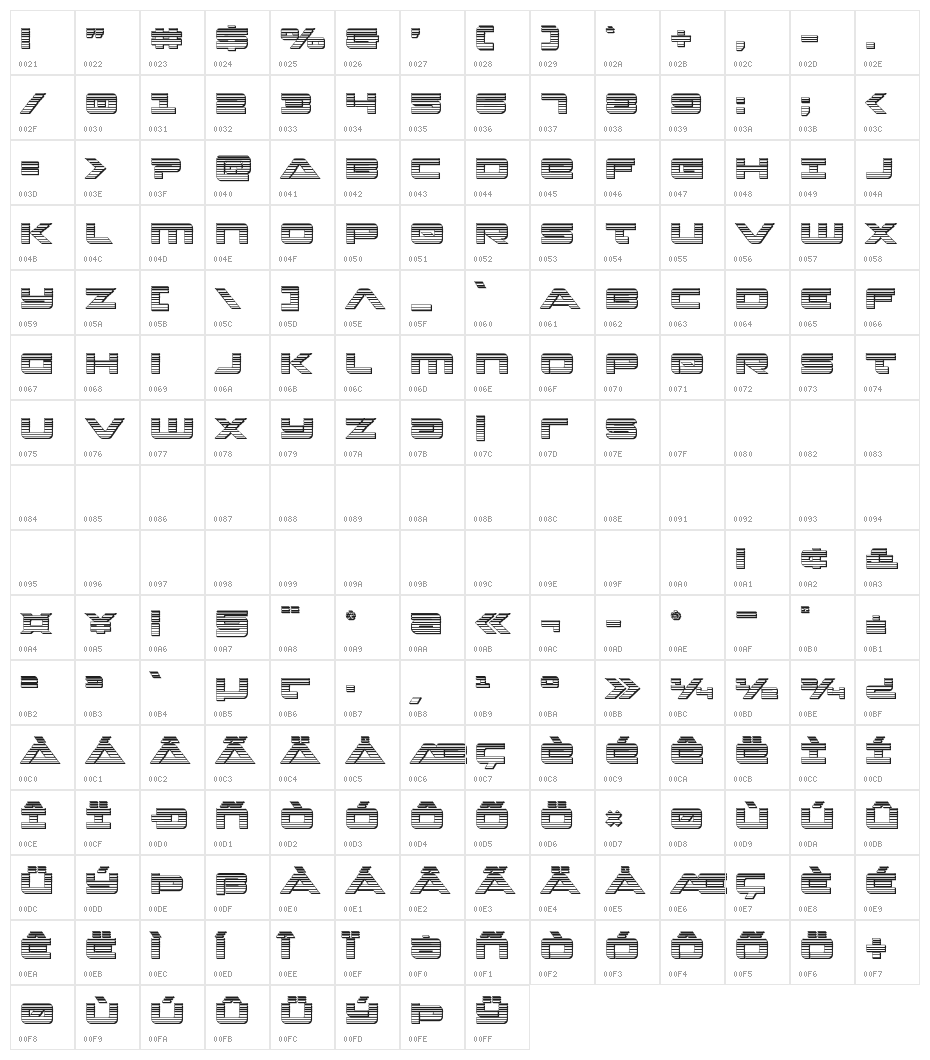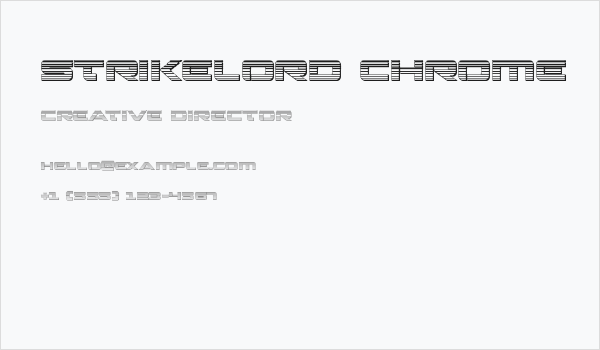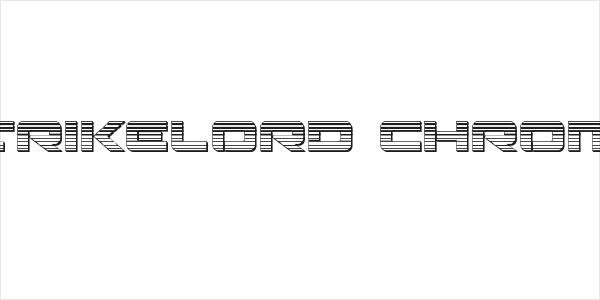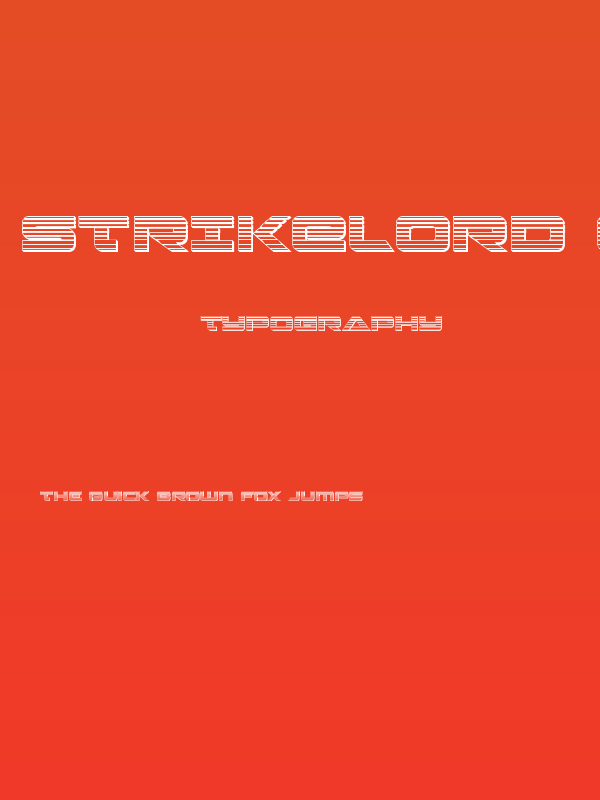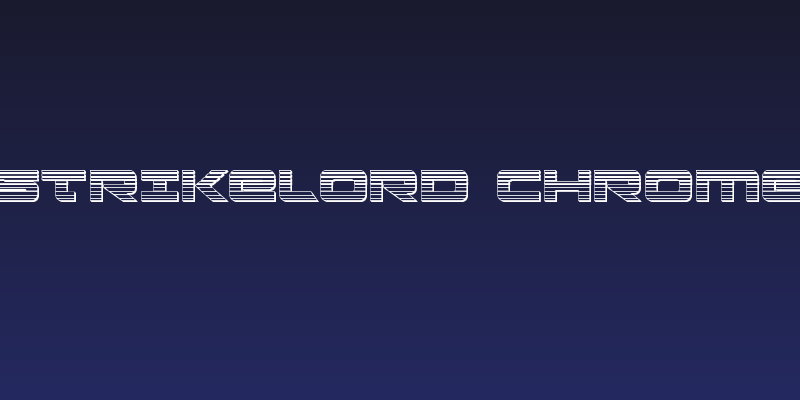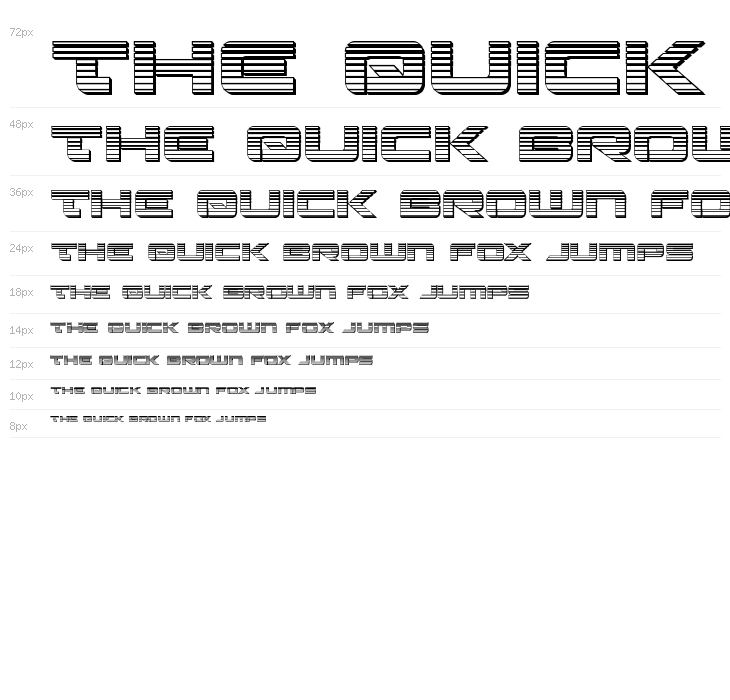
Strikelord Chrome Font
Strikelord Chrome Description
This font features a bold, futuristic design with a chrome-like appearance. Its geometric structure is characterized by parallel lines that create a sense of depth and dimensionality. The uppercase and lowercase letters maintain a consistent style, with sharp angles and a mechanical feel. Numbers and special characters follow the same design principles, ensuring uniformity across all glyphs. The font's unique style makes it ideal for projects that require a modern, tech-inspired aesthetic.
| Overall Style | Futuristic, Modern |
| Proposed Projects | Ideal for technology branding, sci-fi movie posters, video game titles, and futuristic-themed designs. |